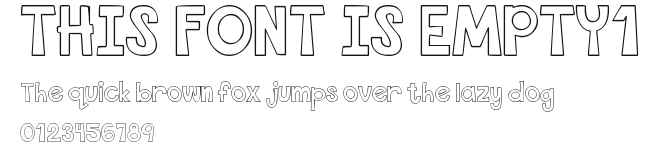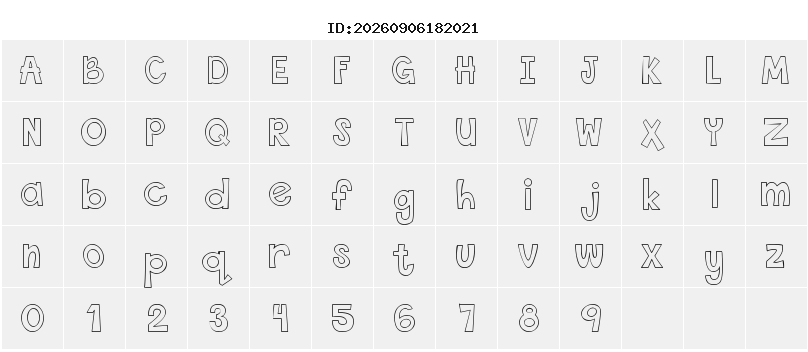
THIS FONT IS EMPTY1 Preview
• Font Name: THIS FONT IS EMPTY1
• Font Style: Gras
• Font ID: THIS FONT IS EMPTY1 Bold:Version 1.00
• Full Font Name: THIS FONT IS EMPTY1 Bold
• Version: Version 1.00 August 4, 2011, initial release
• PostScript Name: THISFONTISEMPTY1-Bold
About THIS FONT IS EMPTY1.ttf
THIS FONT IS EMPTY1.ttf is a modern, elegant sans-serif font designed for ultimate readability and visual harmony. Perfect for branding, headlines, web design, and print materials.